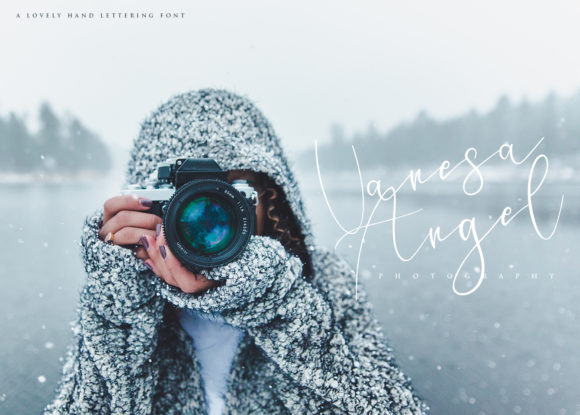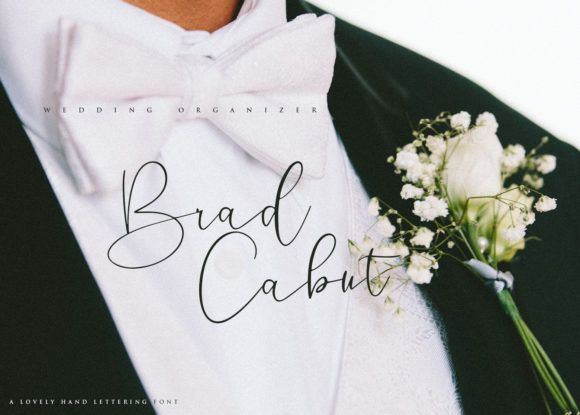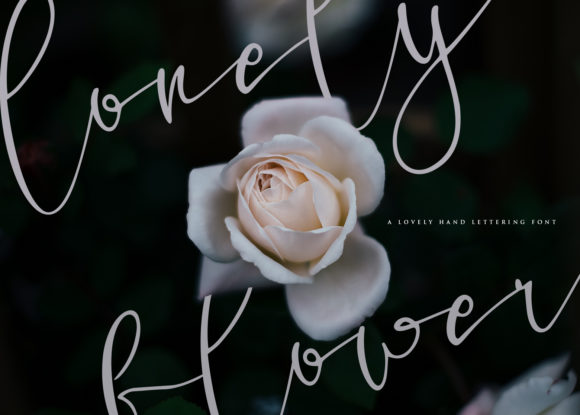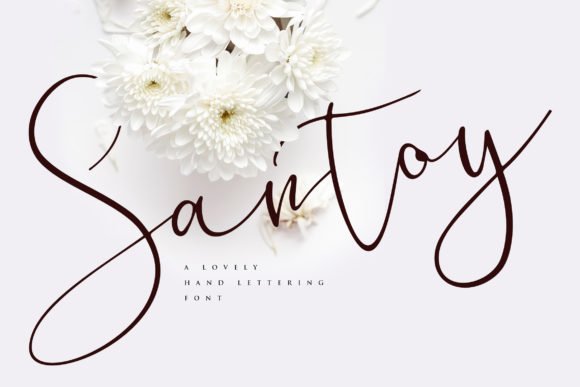
Introduction to Santoy Font
Santoy is an extremely light and stunning handwritten font with a bold feel.
Use it to turn any design project into an eye catcher .